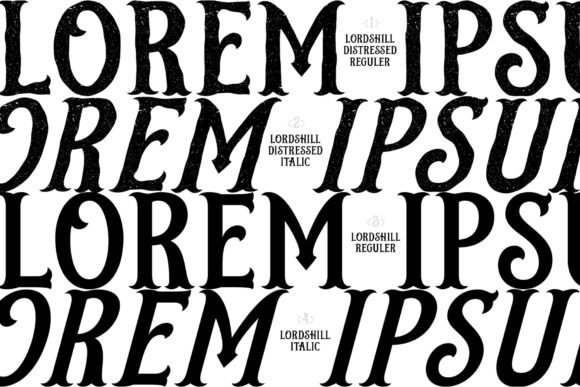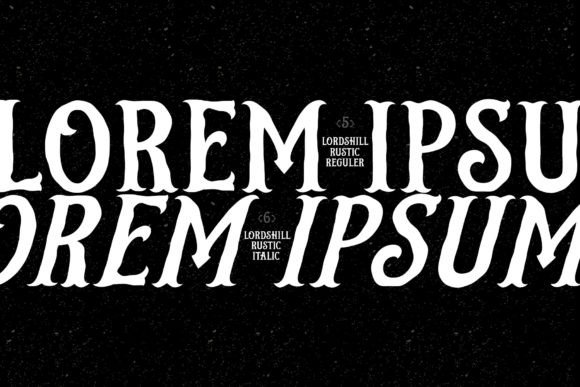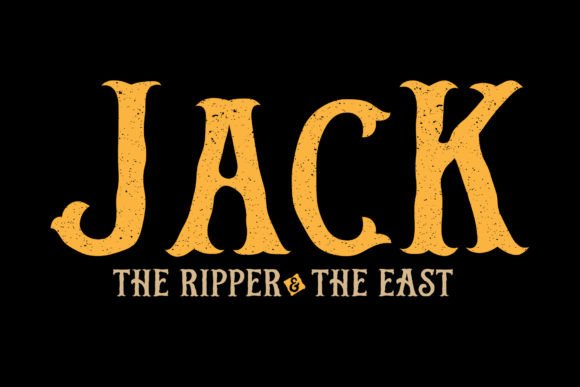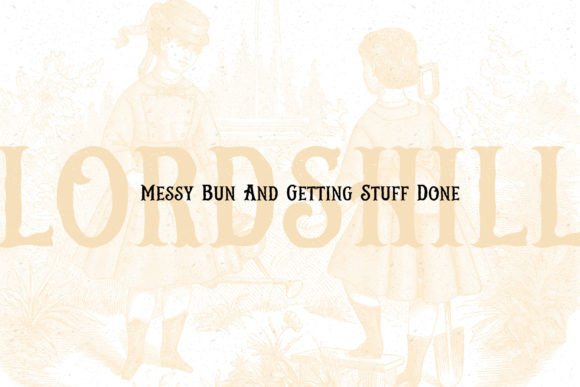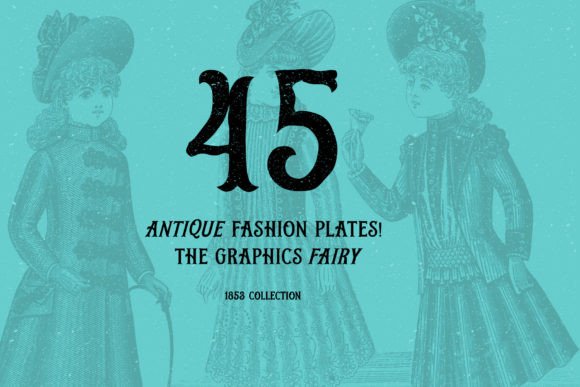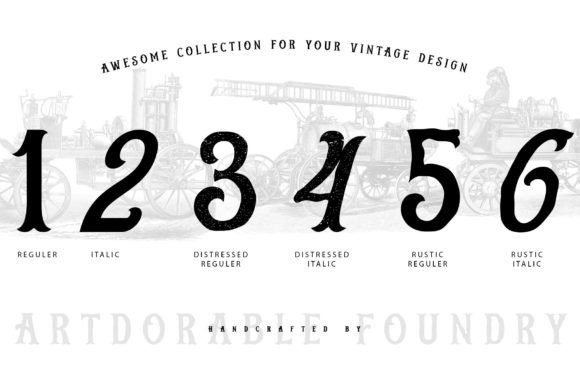
Introduction to Lordshill Font
Lordshill is a retro and western looking display font.
This bold, unique and vintage font can easily become your favorite It can be used for books, magazine covers, social media posts, invitations, and so much more.
Key Features of Lordshill Font